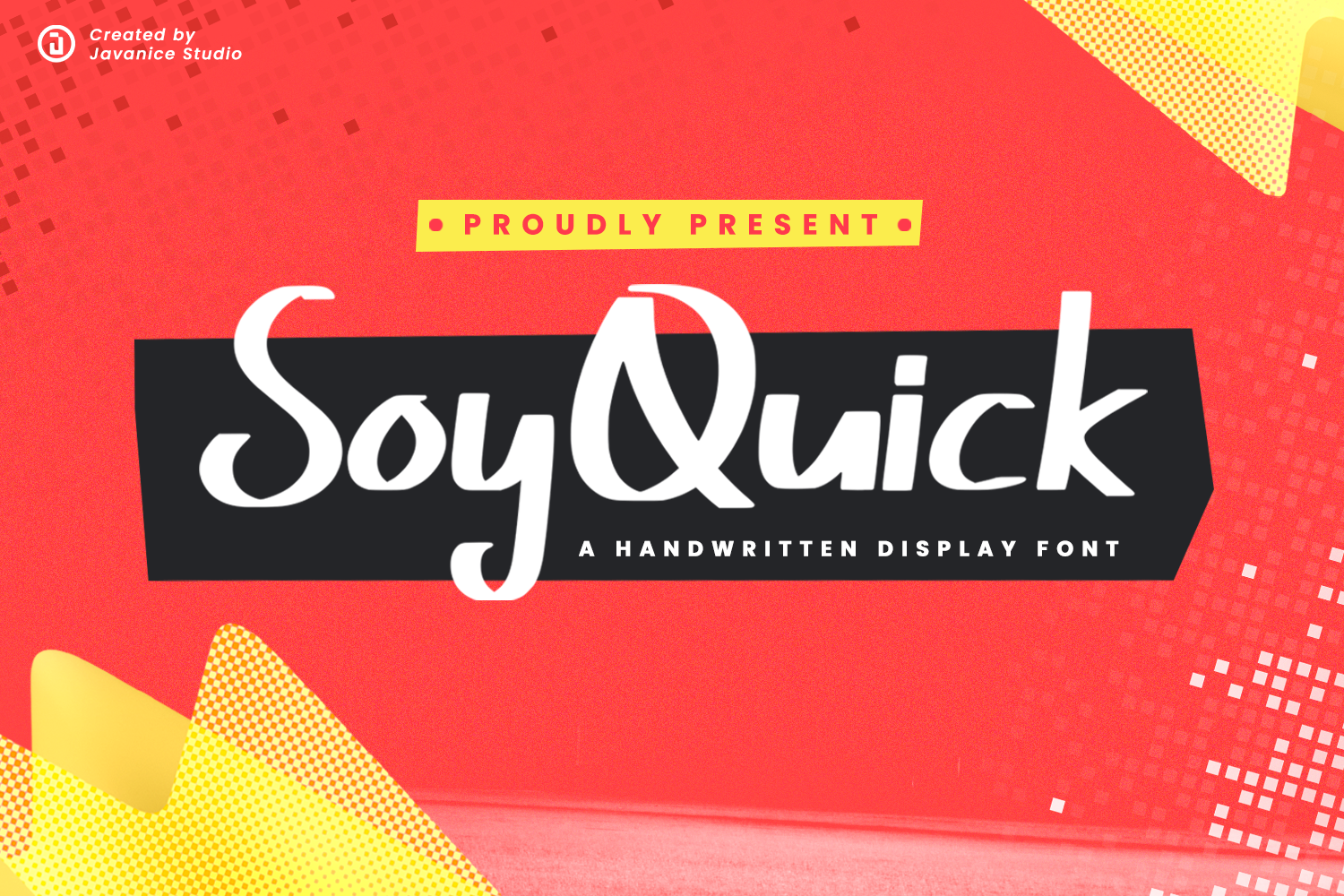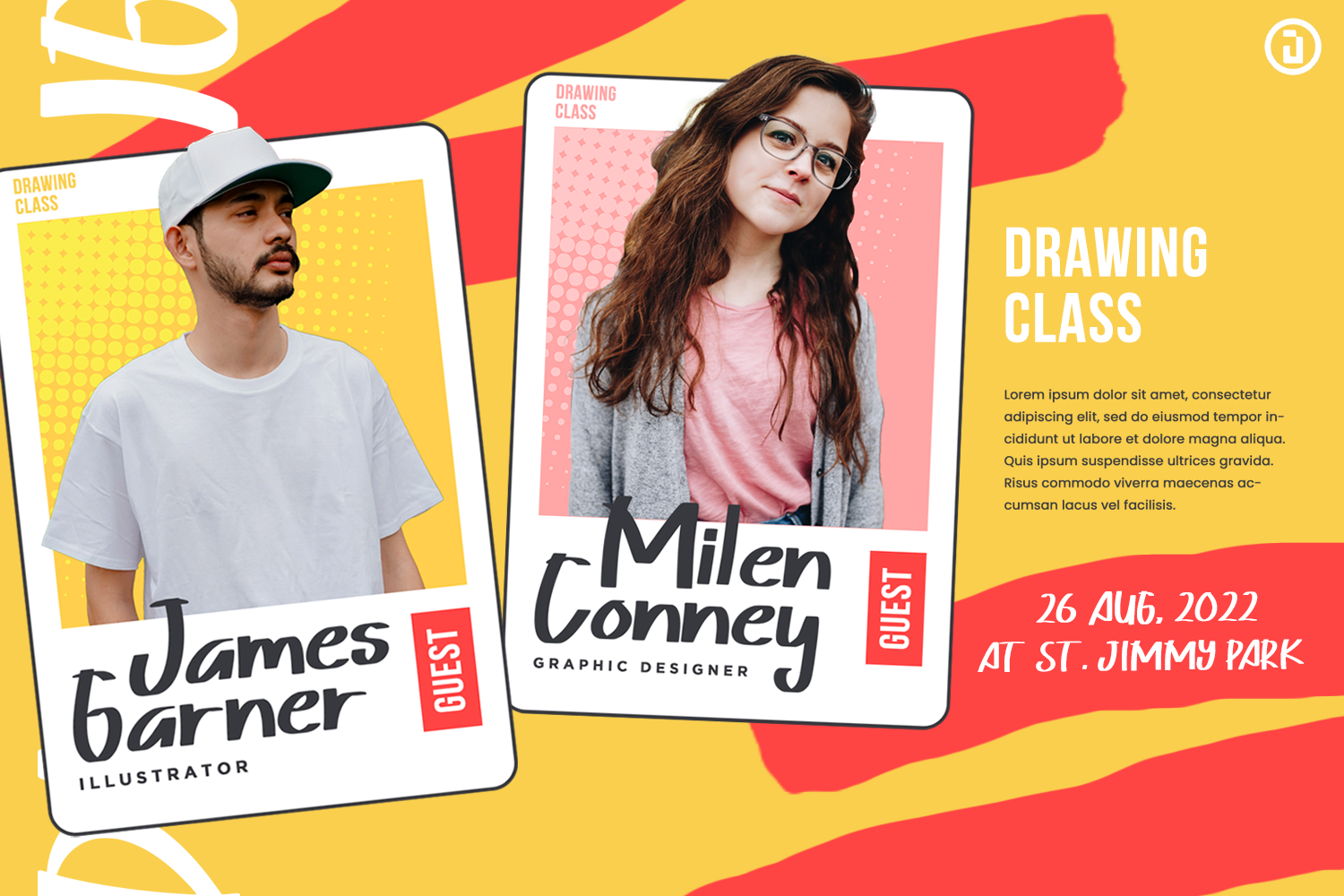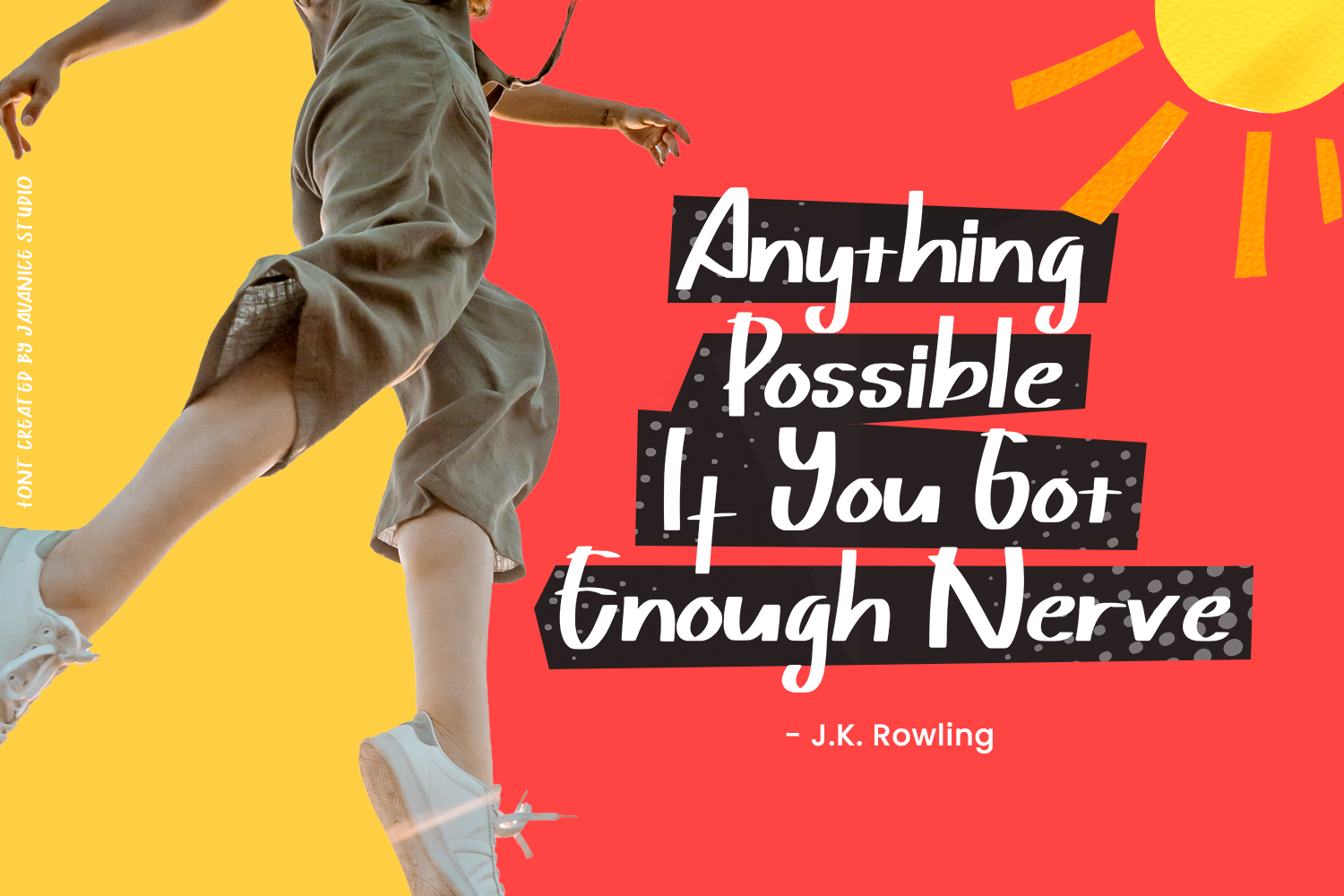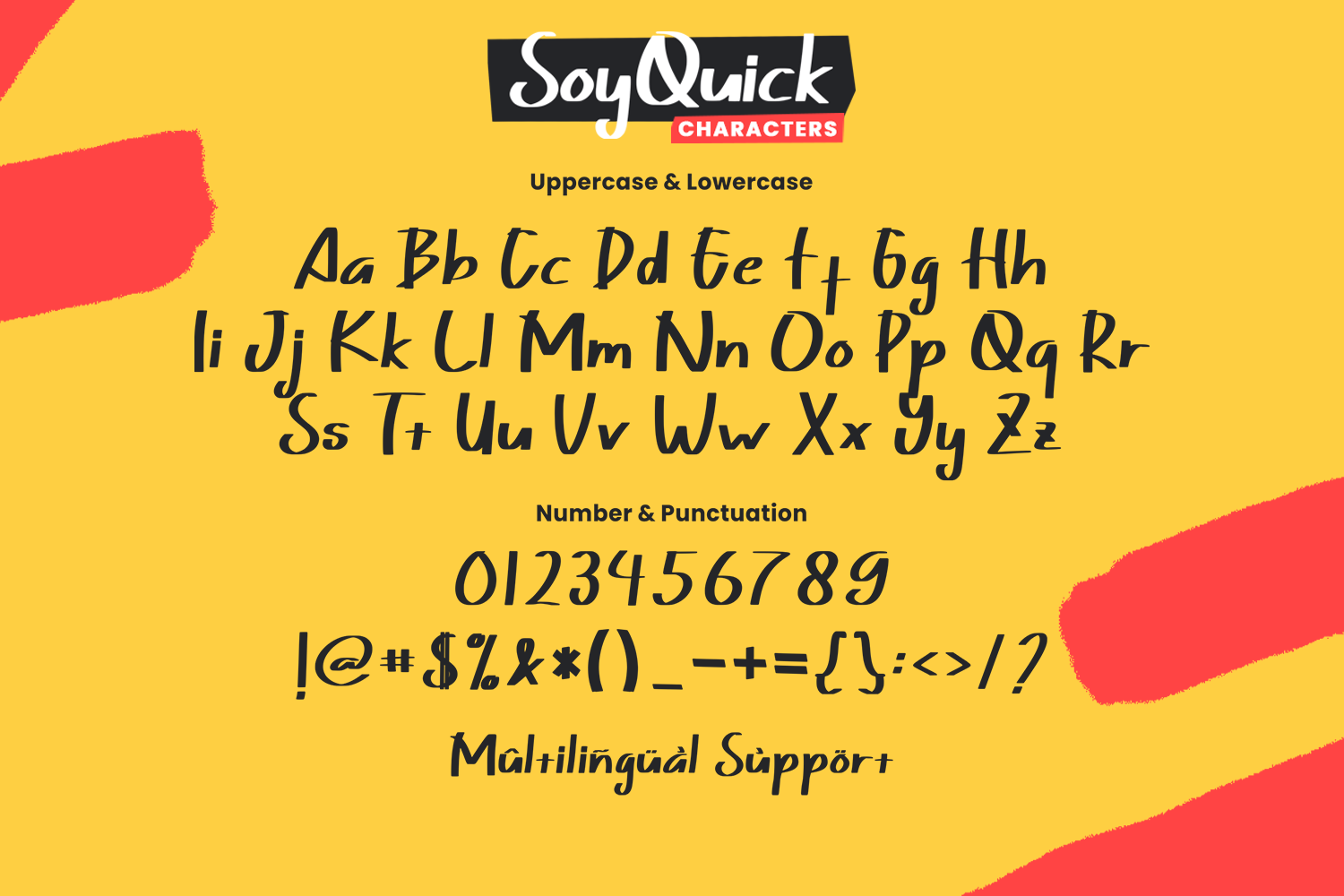
SoyQuick Font
SoyQuick Display Font
This is a display font. SoyQuick is perfect for branding project, apparel, labels, magazines, books, greeting / wedding cards, packaging, fashion, make up, stationery, and any type of advertising purpose or just used to express words above the background.